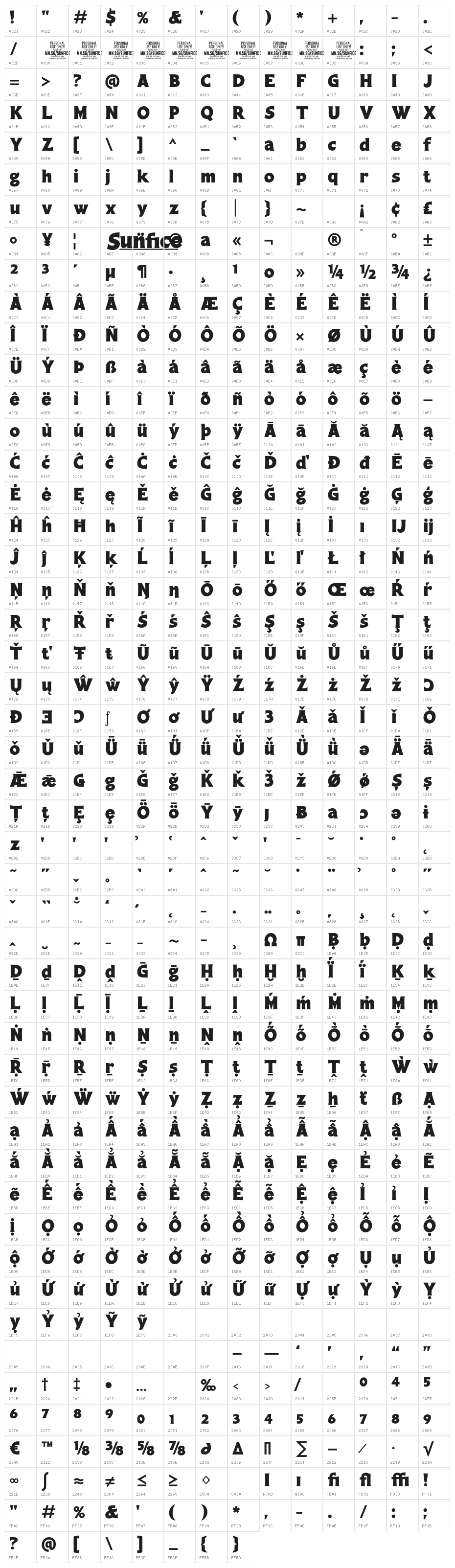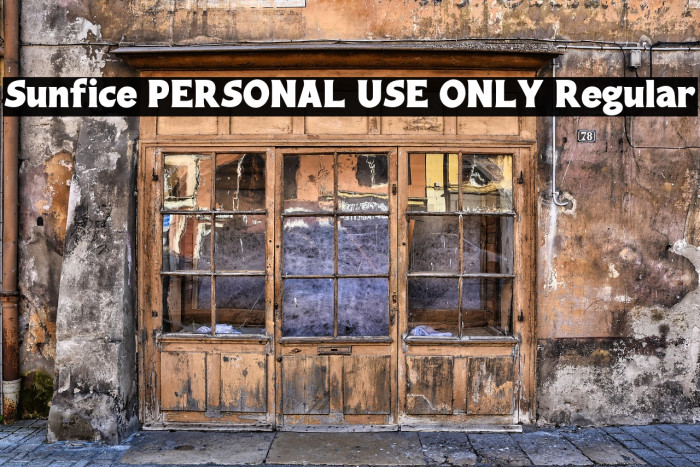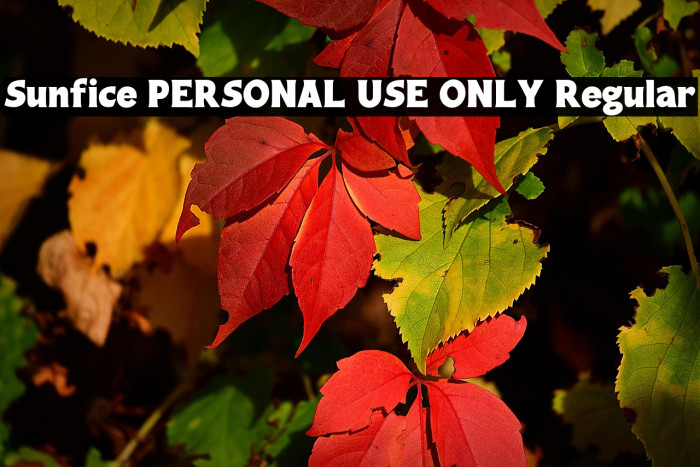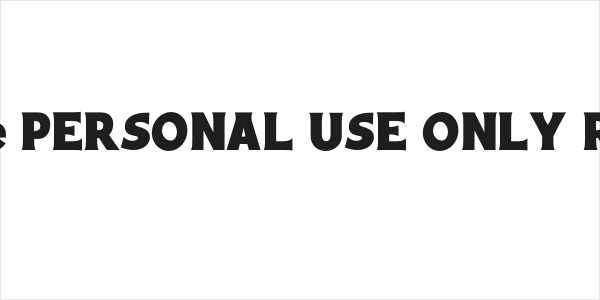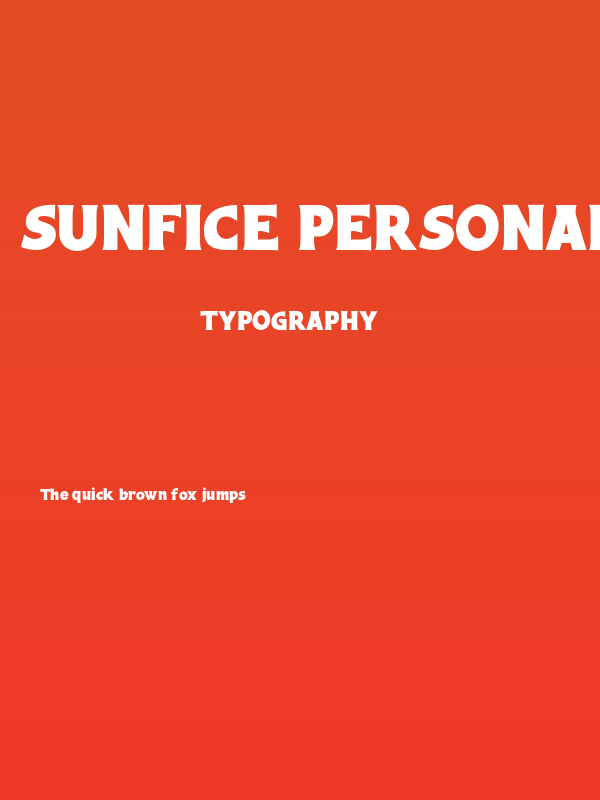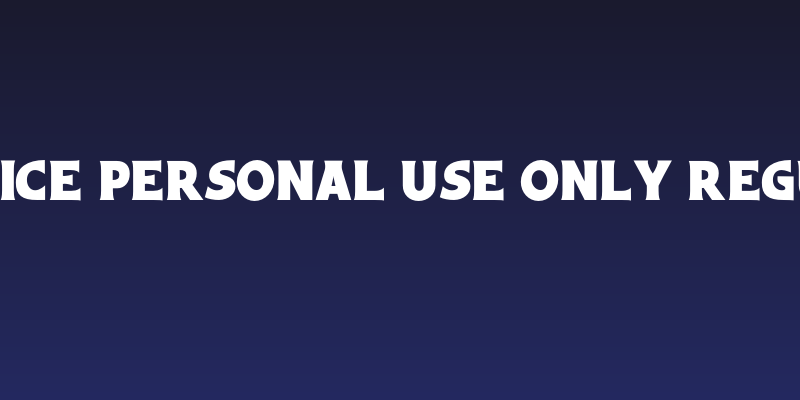
Sunfice PERSONAL USE ONLY Regular Font
Sunfice PERSONAL USE ONLY Regular Description
This font features a bold and striking design with thick, uniform strokes that create a strong visual impact. The characters are slightly condensed, giving the typeface a compact and powerful appearance. The uppercase letters are particularly prominent, with sharp angles and a modern aesthetic. The lowercase letters maintain the boldness, ensuring consistency across the typeface. The numerals and special characters are designed to match the overall style, making them suitable for various applications. This font is ideal for projects that require a bold statement, such as headlines, posters, and branding materials.